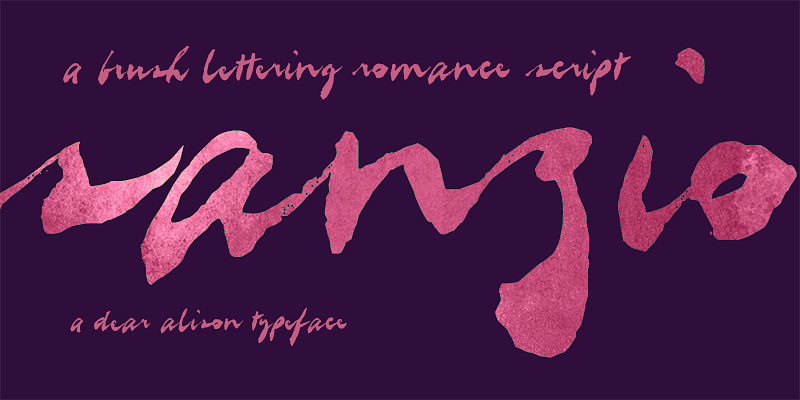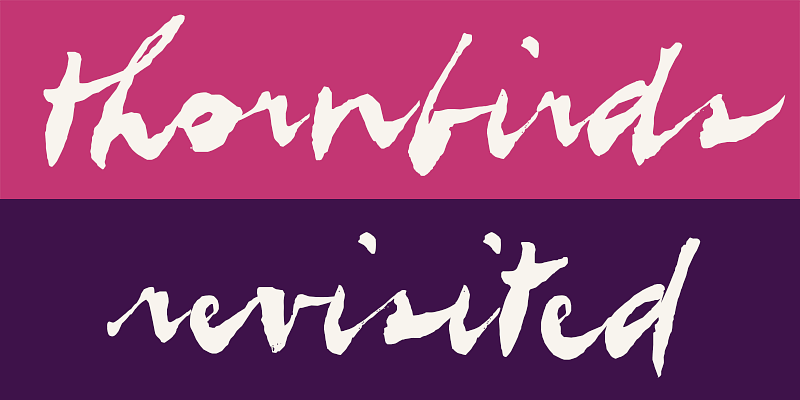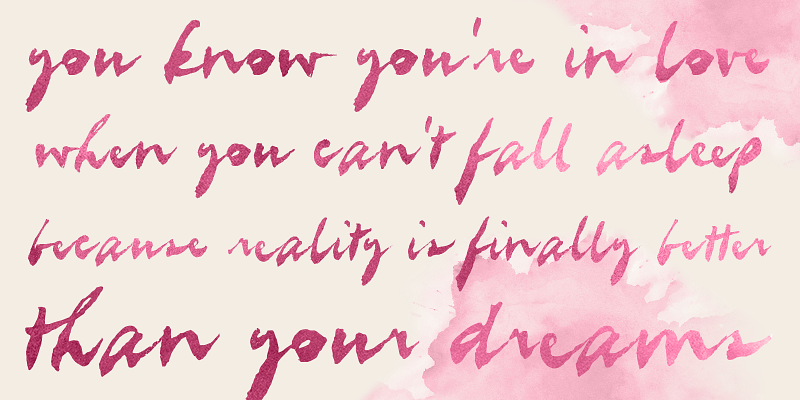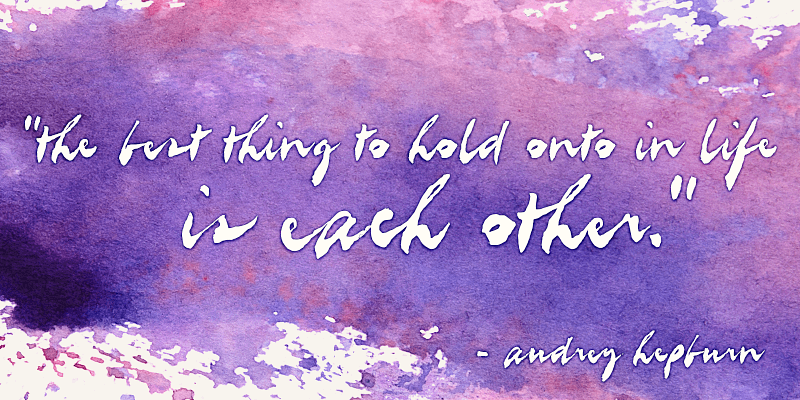
Sanzio is a brush lettering script with raw movement, textured edges, and expressive pressure. It is not overly polished or precious; it embraces the irregularities that make hand-painted lettering feel alive.
The strokes are fast, bold, and emotional, with a dry-brush texture that adds energy without losing readability. Sanzio can feel romantic, dramatic, urgent, or rebellious depending on how it is used, making it especially useful for expressive display typography.
Use Sanzio for bold headlines, packaging, posters, apparel graphics, social media, book covers, romantic quotes, branding, and layouts that need a strong hand-lettered presence. It works best where the lettering is allowed to be seen and felt — large, confident, and full of motion.
Sanzio brings the immediacy of painted words to digital type: human, imperfect, and hard to ignore.